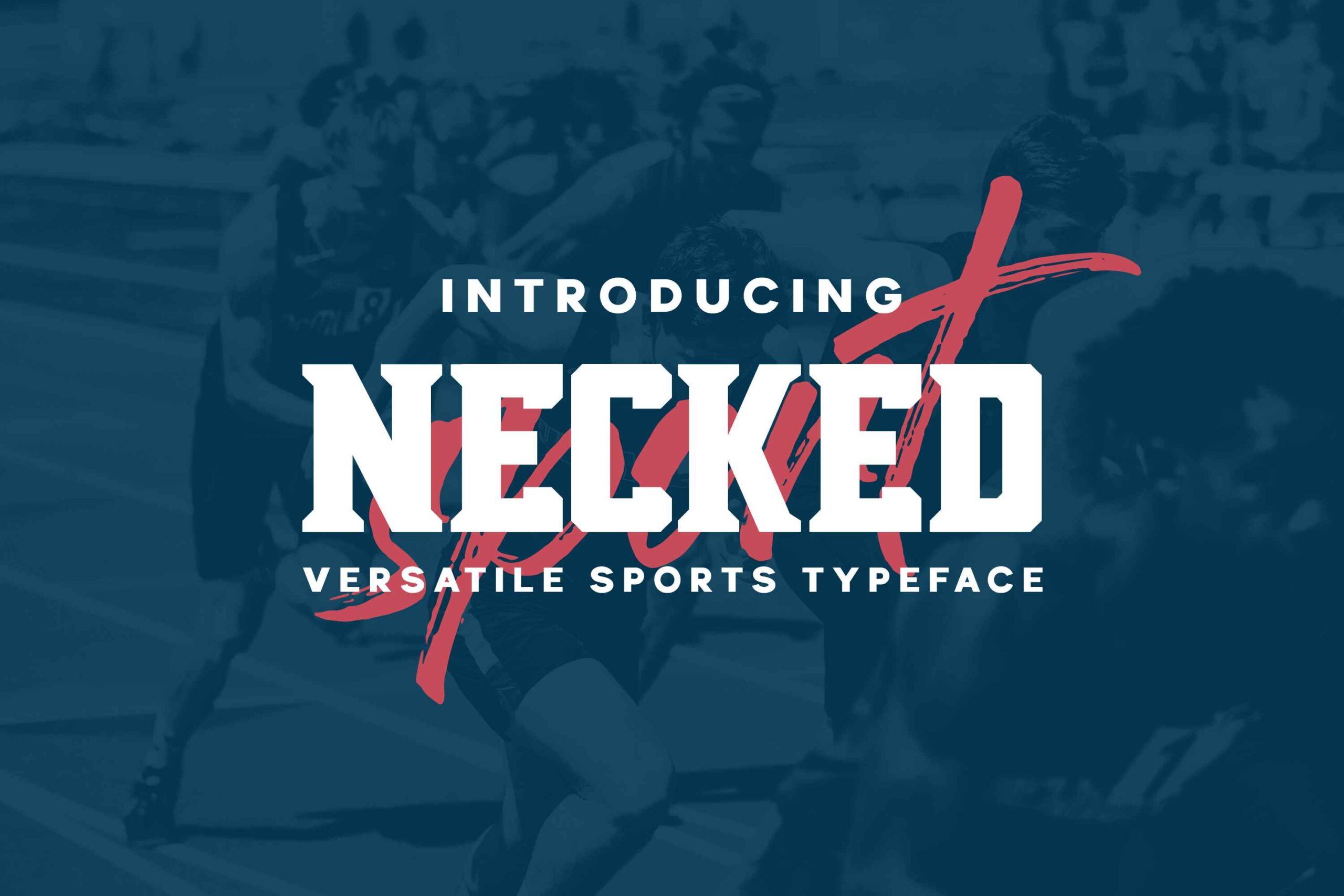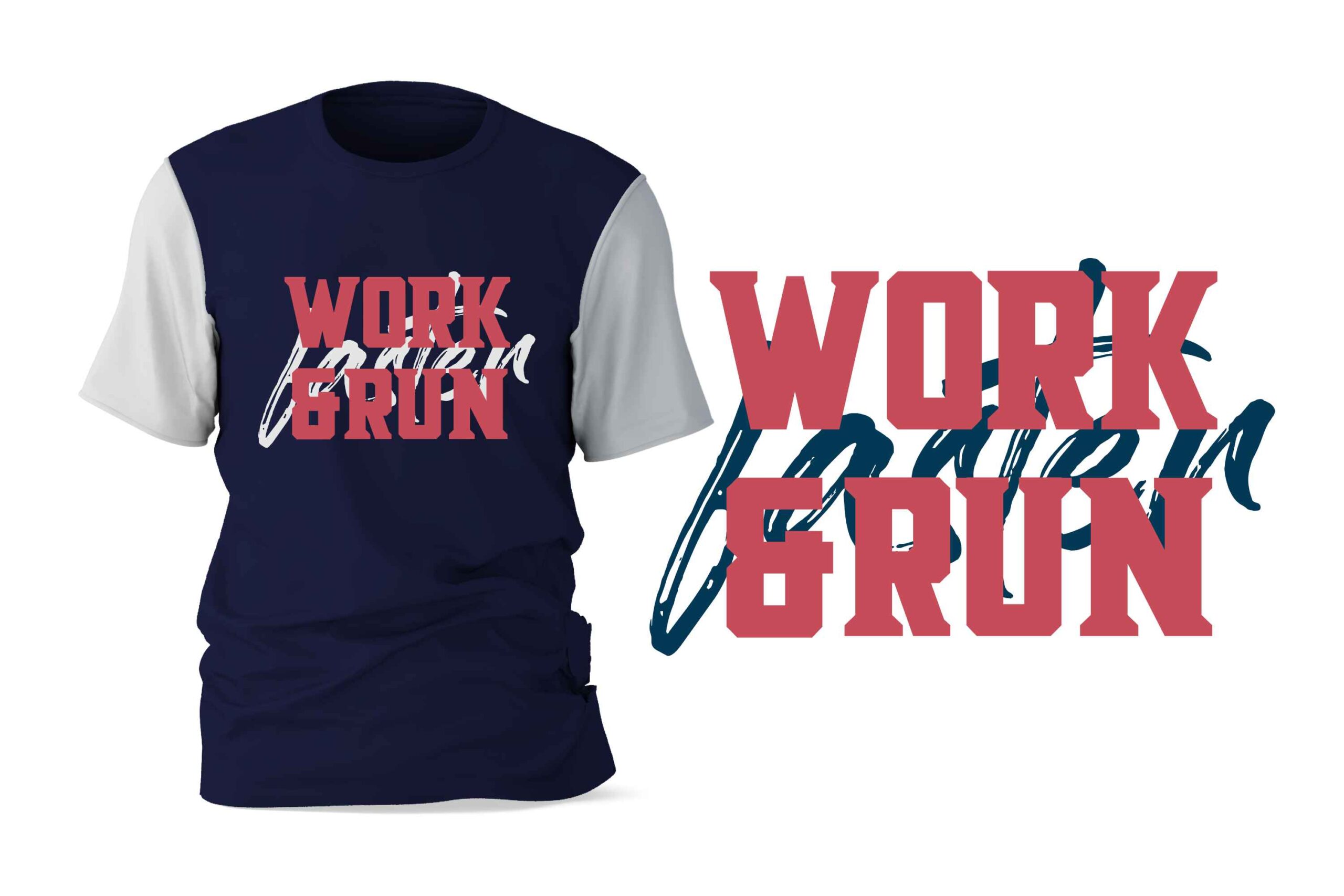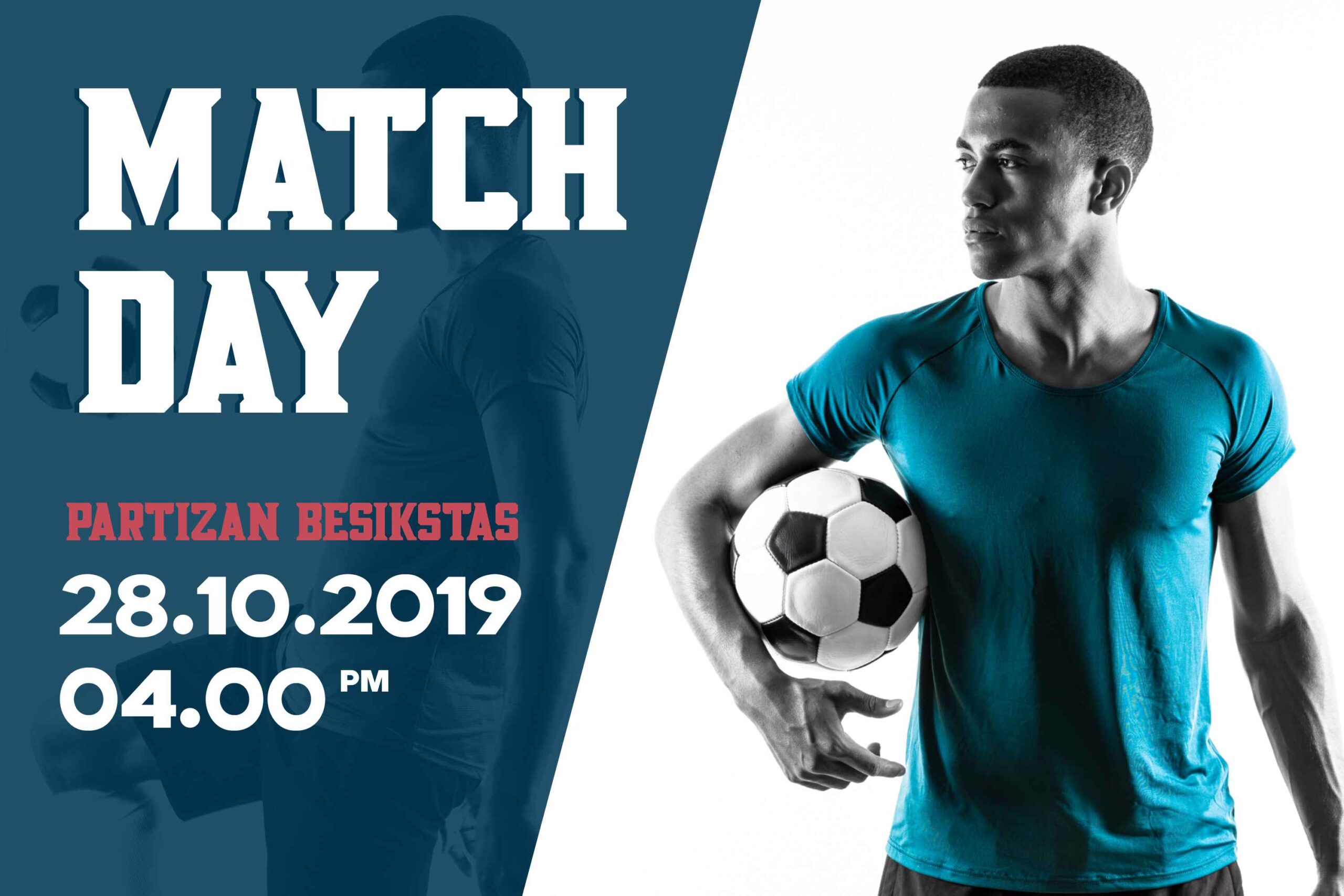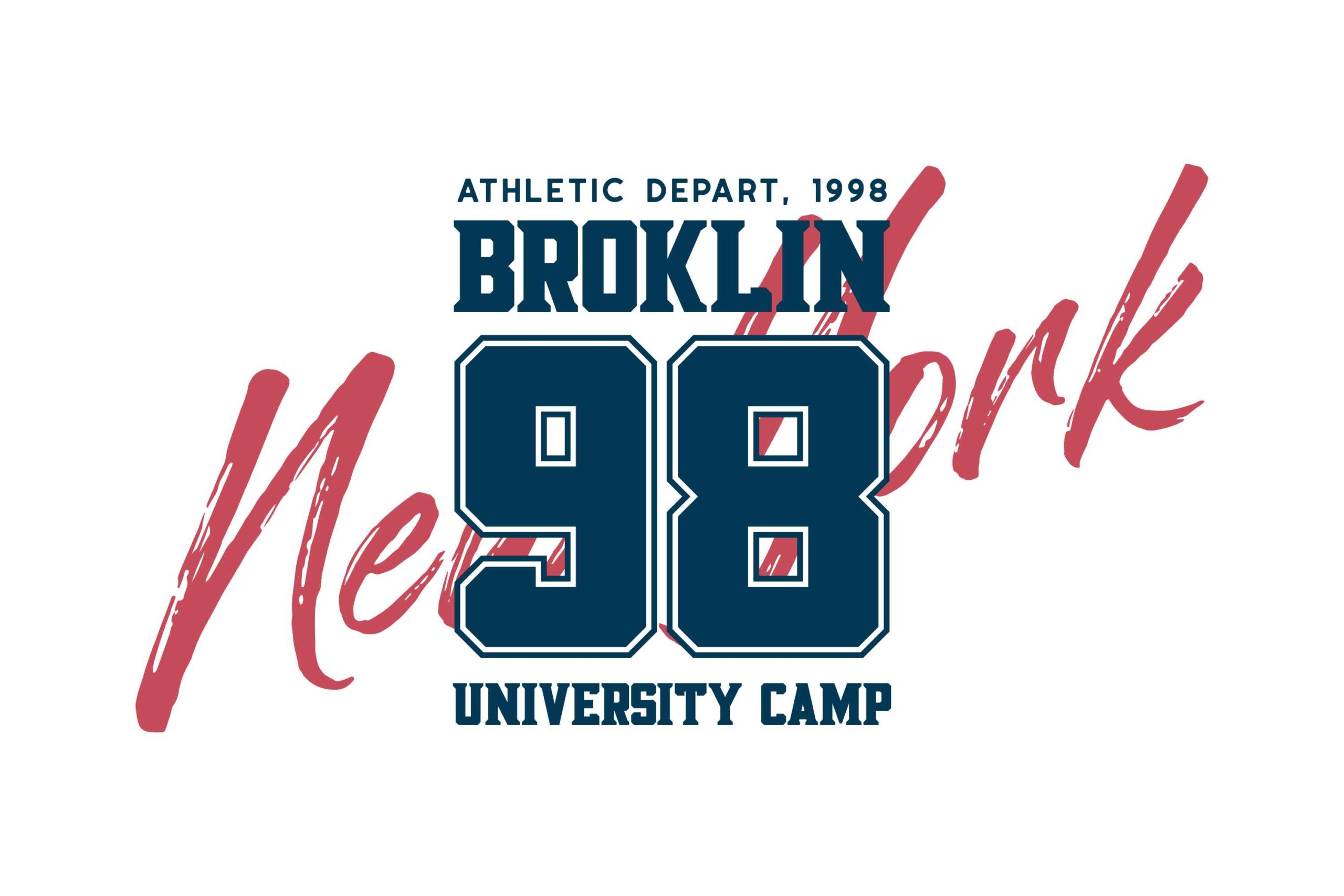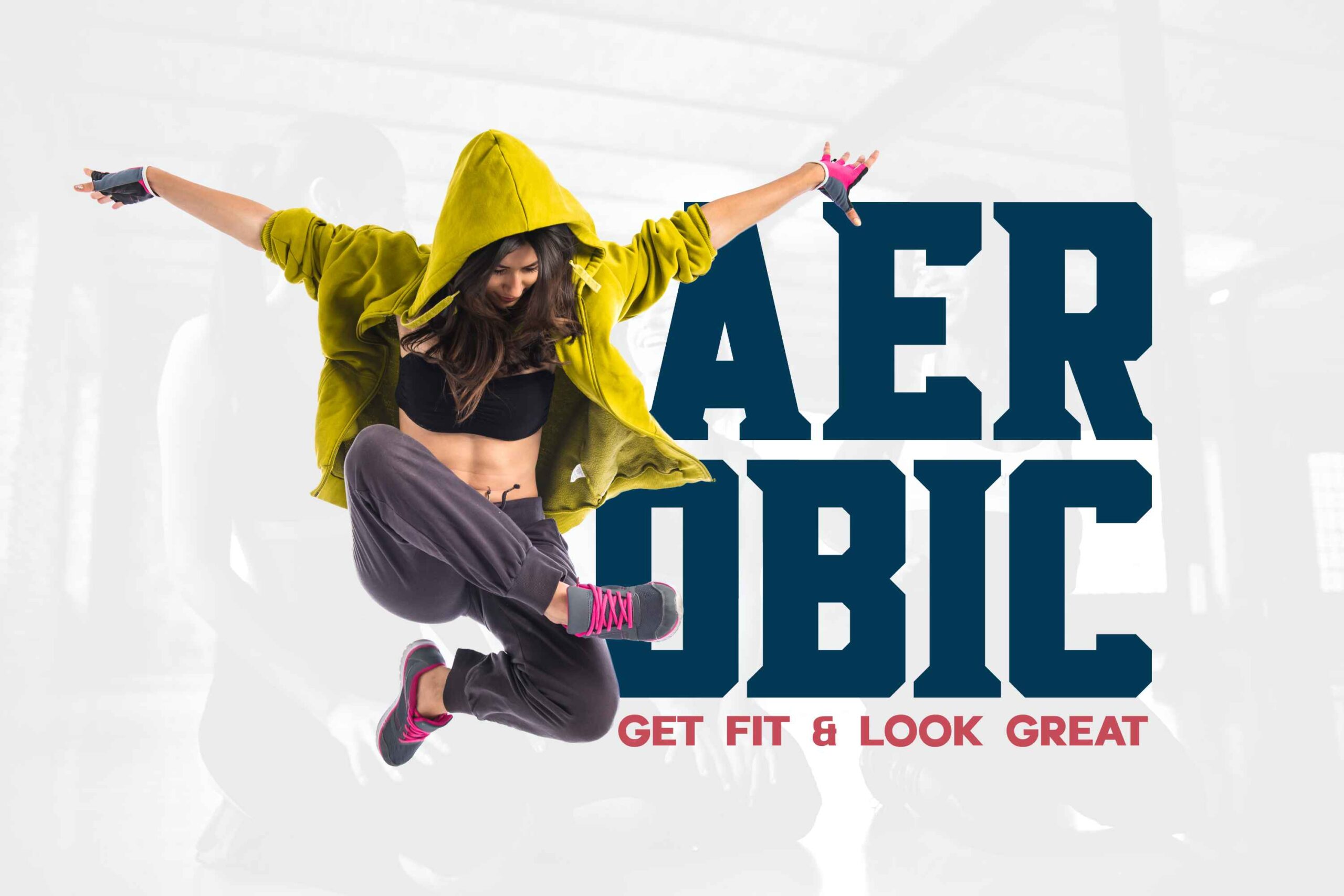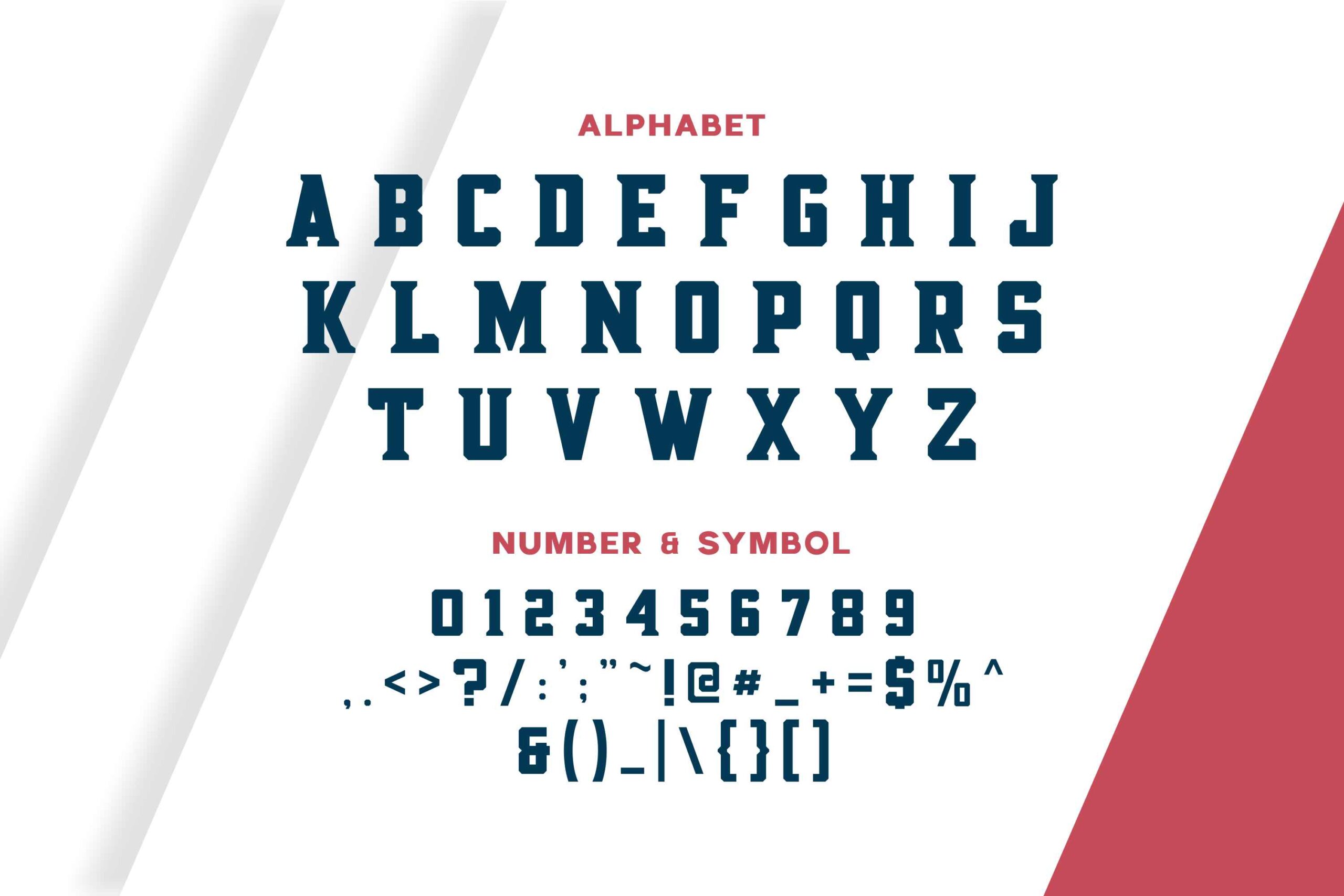
Necked is a bold and versatile sports typeface designed to bring power, energy, and confidence to your projects. With its strong geometric letterforms and sturdy slab serifs, this font embodies the spirit of athletic competition and team pride. Whether used for sports posters, jersey numbers, or event promotions, Necked ensures your message stands out with an unmistakable sense of strength and determination.
Perfectly suited for logos, apparel, and dynamic headlines, Necked adds a professional and impactful edge to any design. Its versatility makes it ideal for football, basketball, running clubs, and university branding. Pair it with modern sans serif or script fonts for a winning combination that delivers both grit and style across print and digital media.
Necked